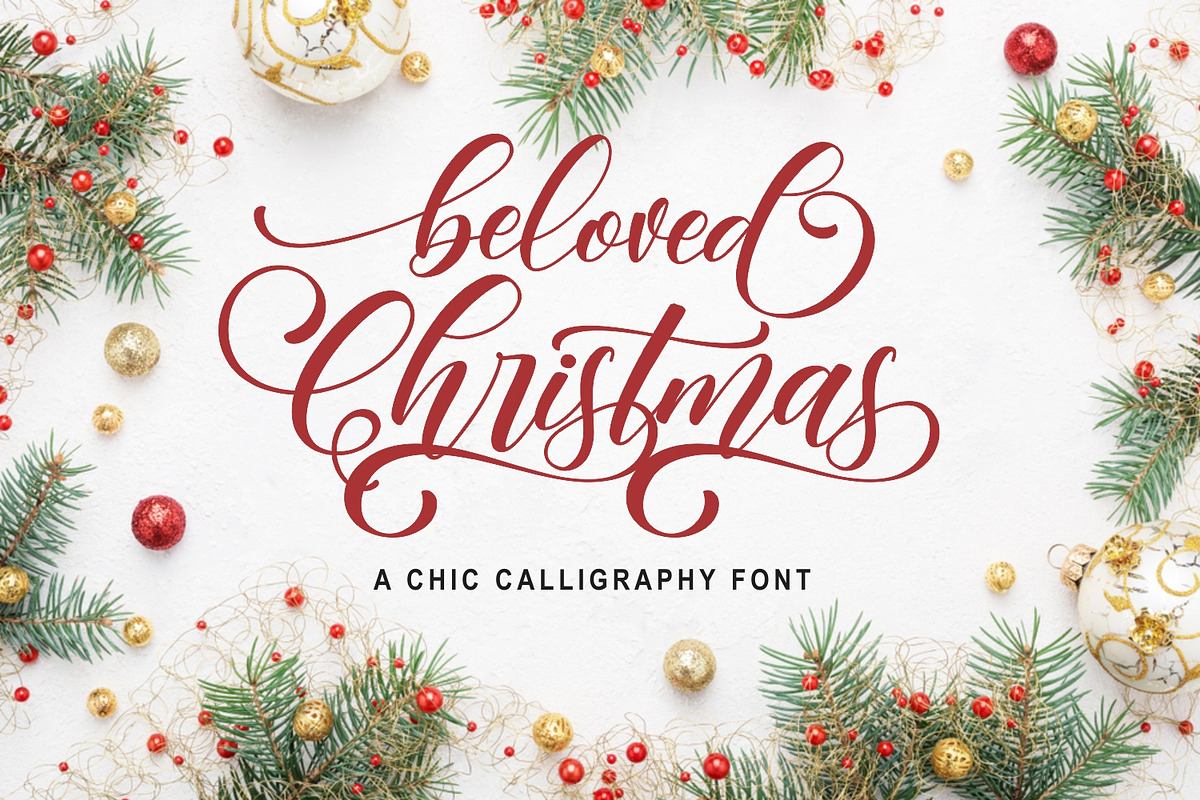
You must purchase this font for commercial use. However, you can download Beloved Christmas Font Free Download for testing purposes. Beloved Christmas is a festive and elegant script font designed to bring a warm, joyful touch to your holiday designs. Perfect for Christmas cards, invitations, logos, social media posts, and any project that needs a touch of holiday magic, this font adds a charming and cheerful style.
With its graceful, flowing letterforms and festive spirit, Beloved Christmas is ideal for creating holiday-themed designs that evoke feelings of warmth and joy. Whether you're working on a holiday greeting, branding for a Christmas event, or crafting a cozy winter design, this font will infuse your projects with a festive and personal touch.